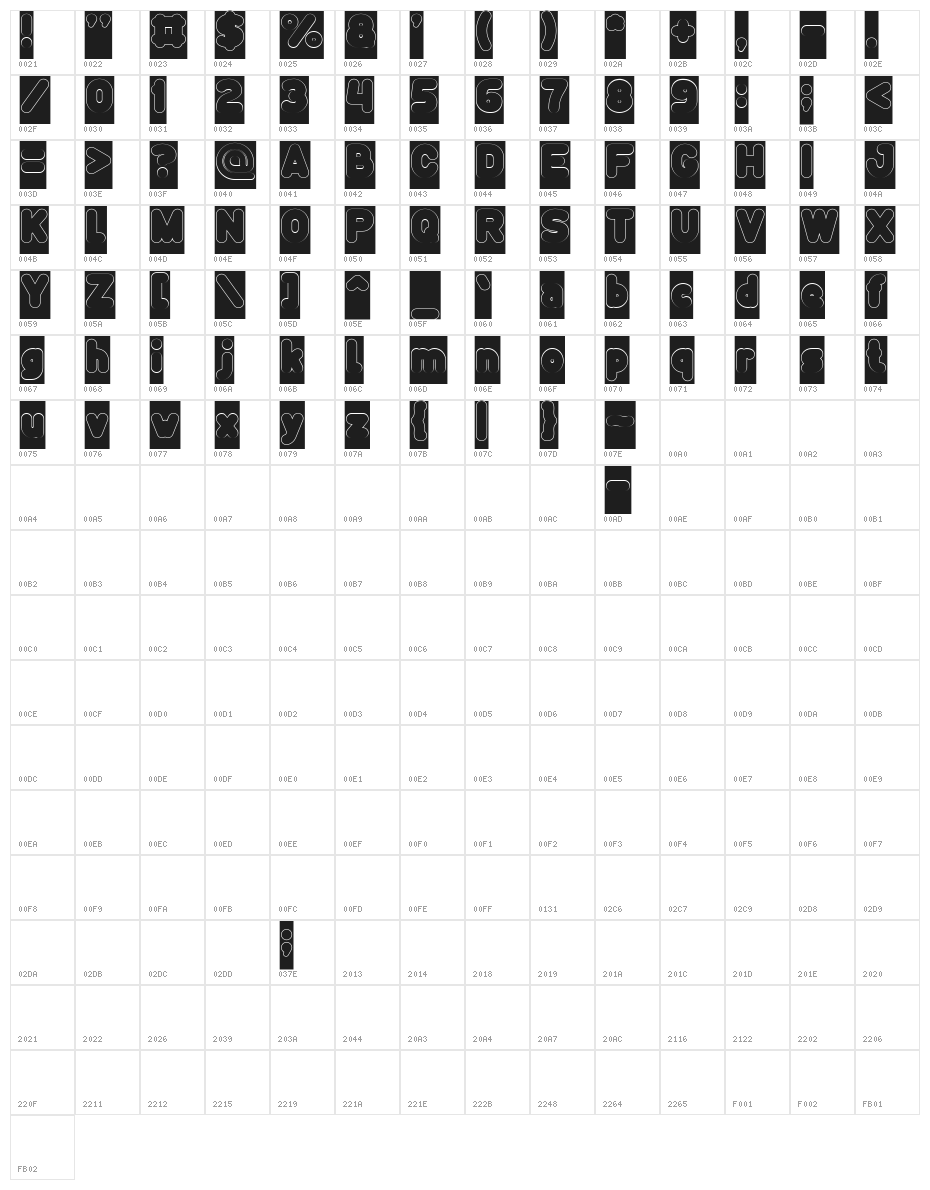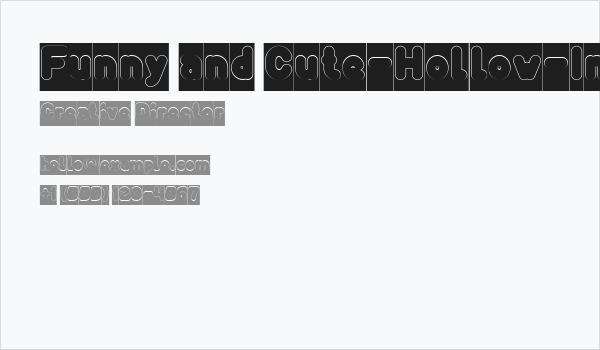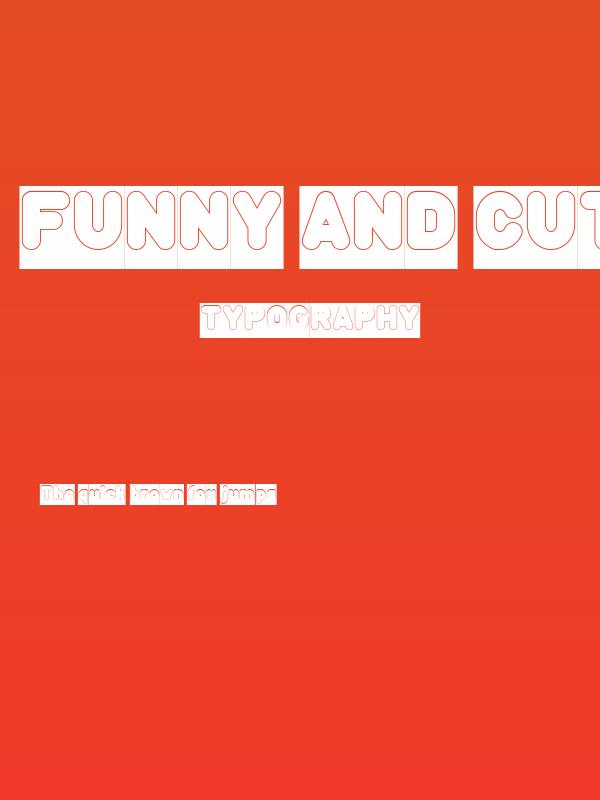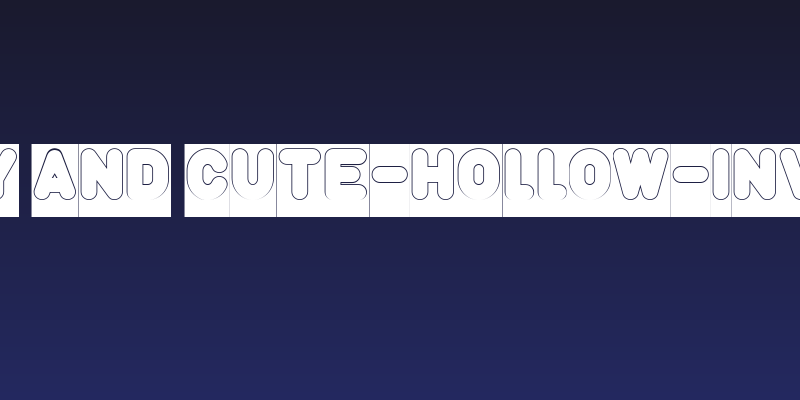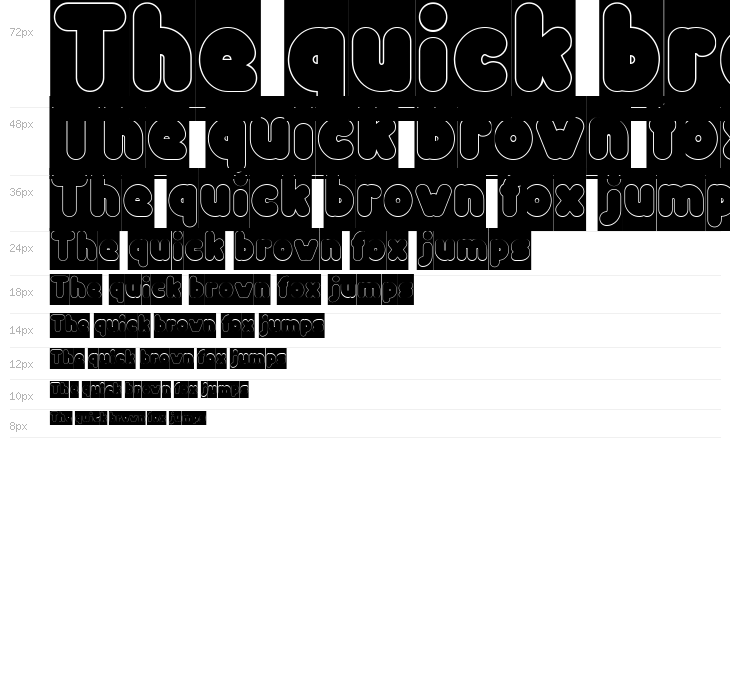
Funny and Cute-Hollow-Inverse Font
Funny and Cute-Hollow-Inverse Description
This playful and whimsical font features hollow, inverse characters with a bold and rounded appearance. The letters are outlined with a consistent thickness, creating a fun and engaging look. The uppercase and lowercase letters maintain a uniform style, with smooth curves and a bubbly aesthetic. The numbers and special characters follow the same design principles, ensuring a cohesive appearance across all glyphs. This font is perfect for projects that require a lighthearted and cheerful vibe, such as children's books, playful branding, or party invitations.
| Proposed Projects | Ideal for children's books, playful branding, party invitations, and fun posters. |